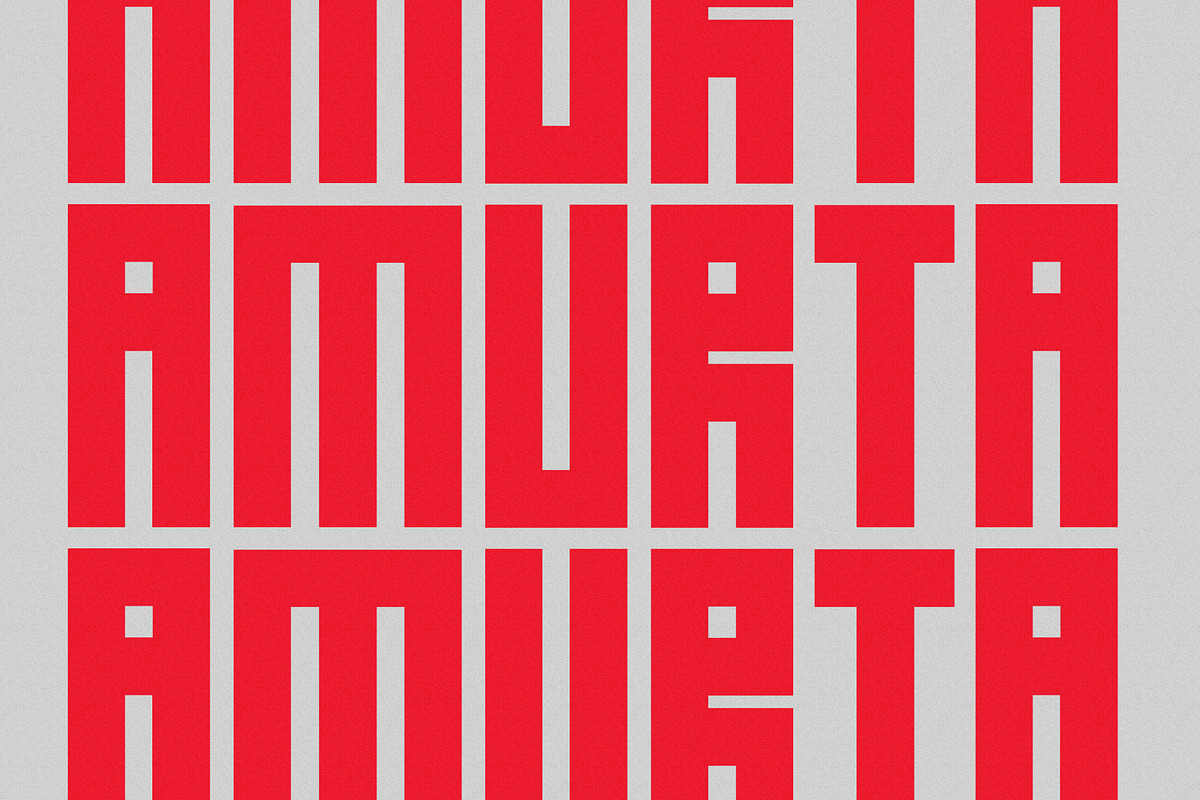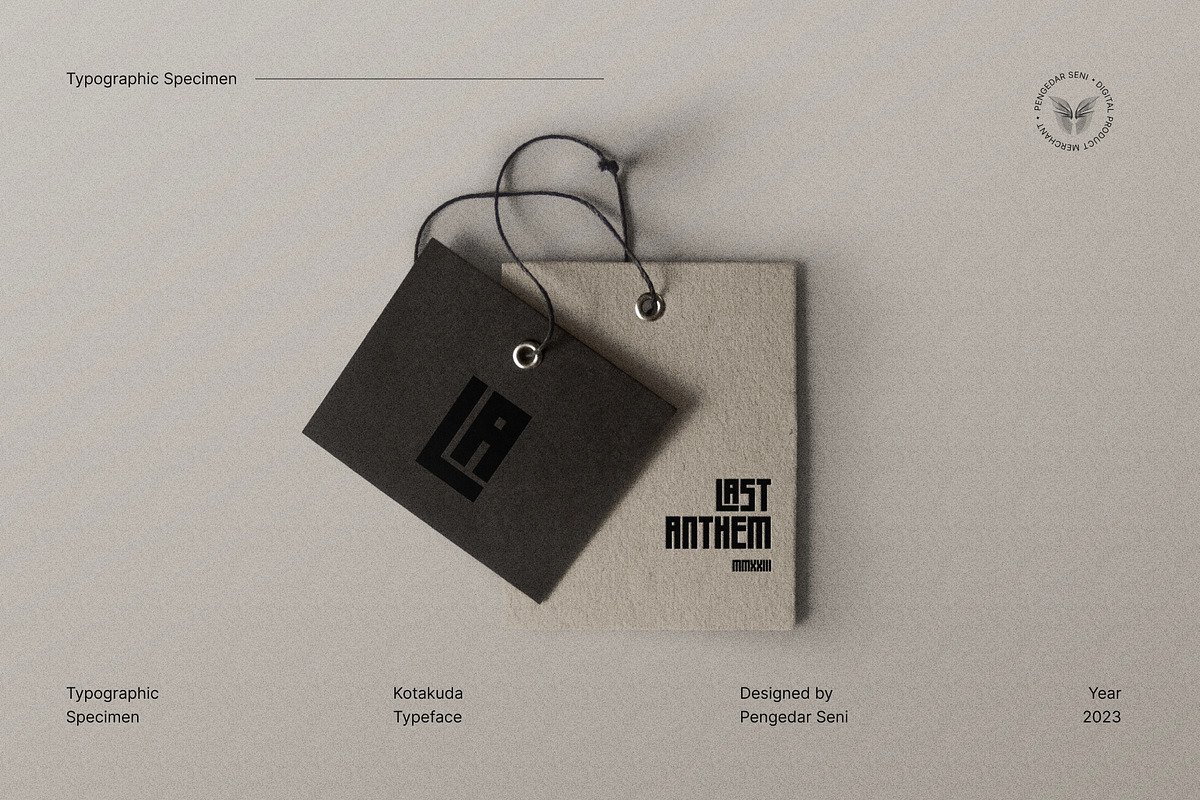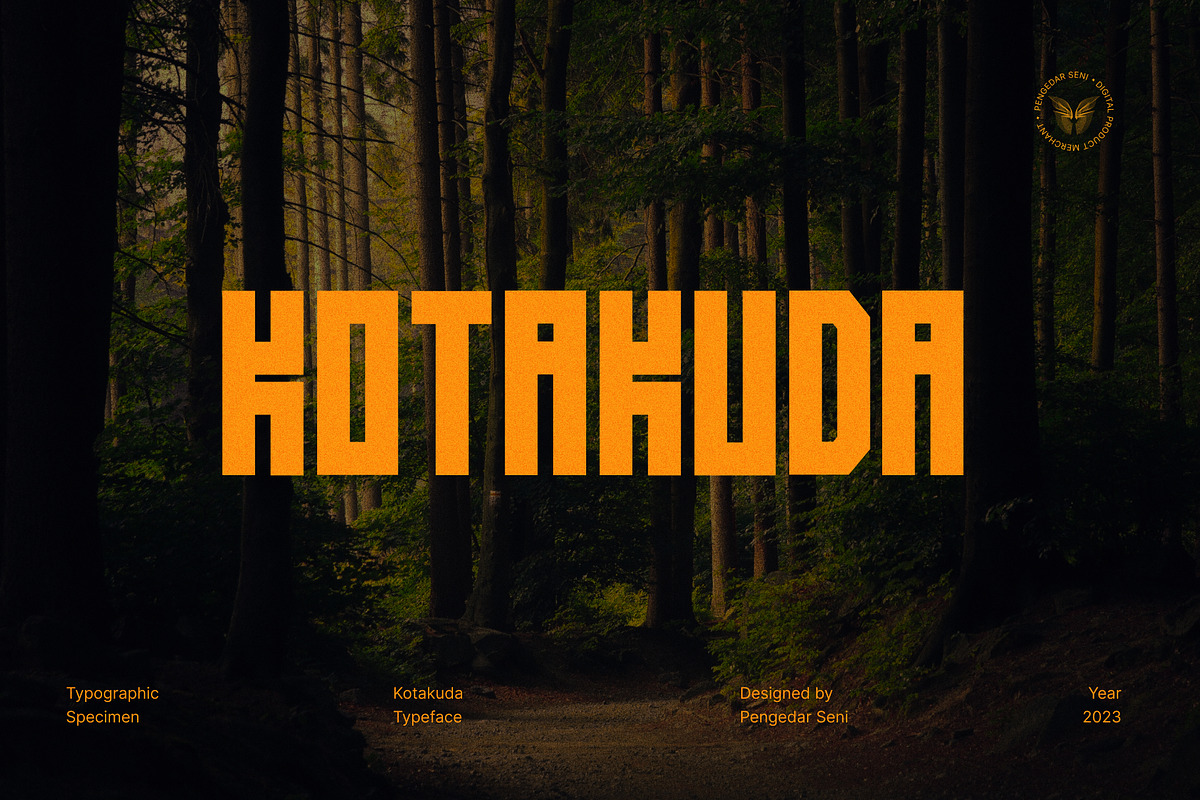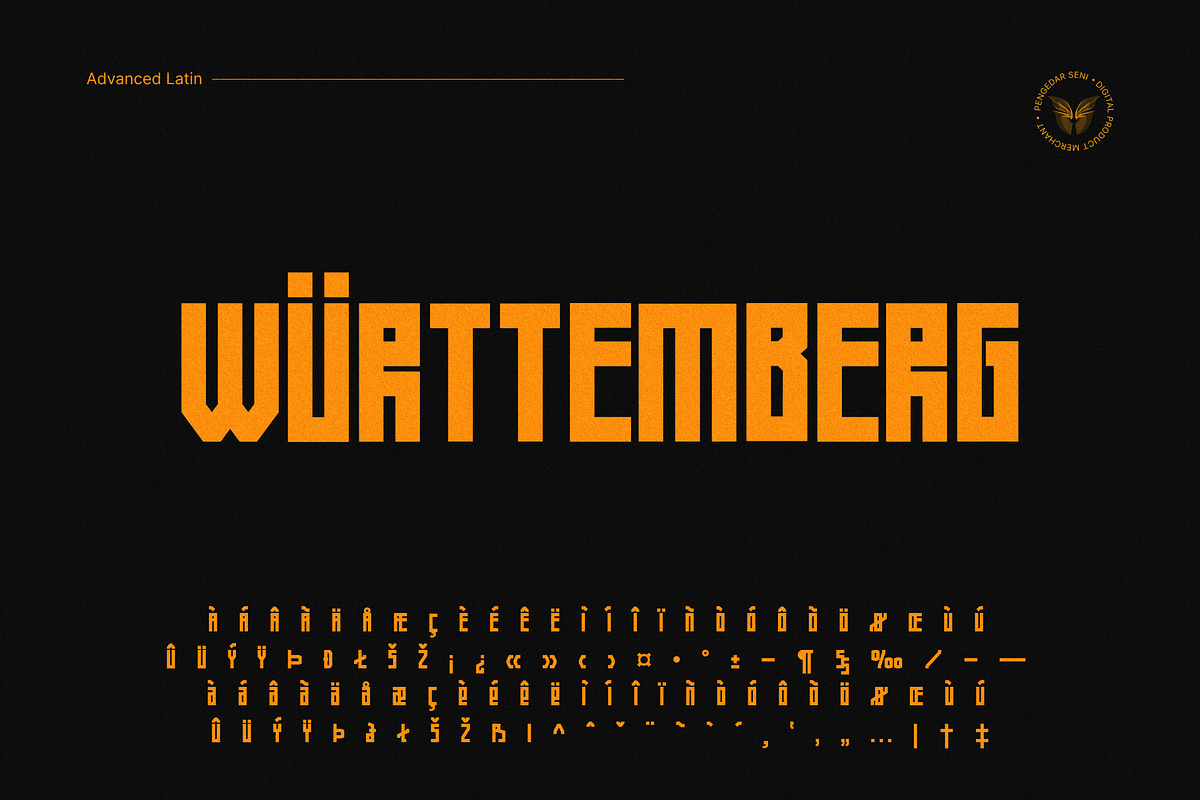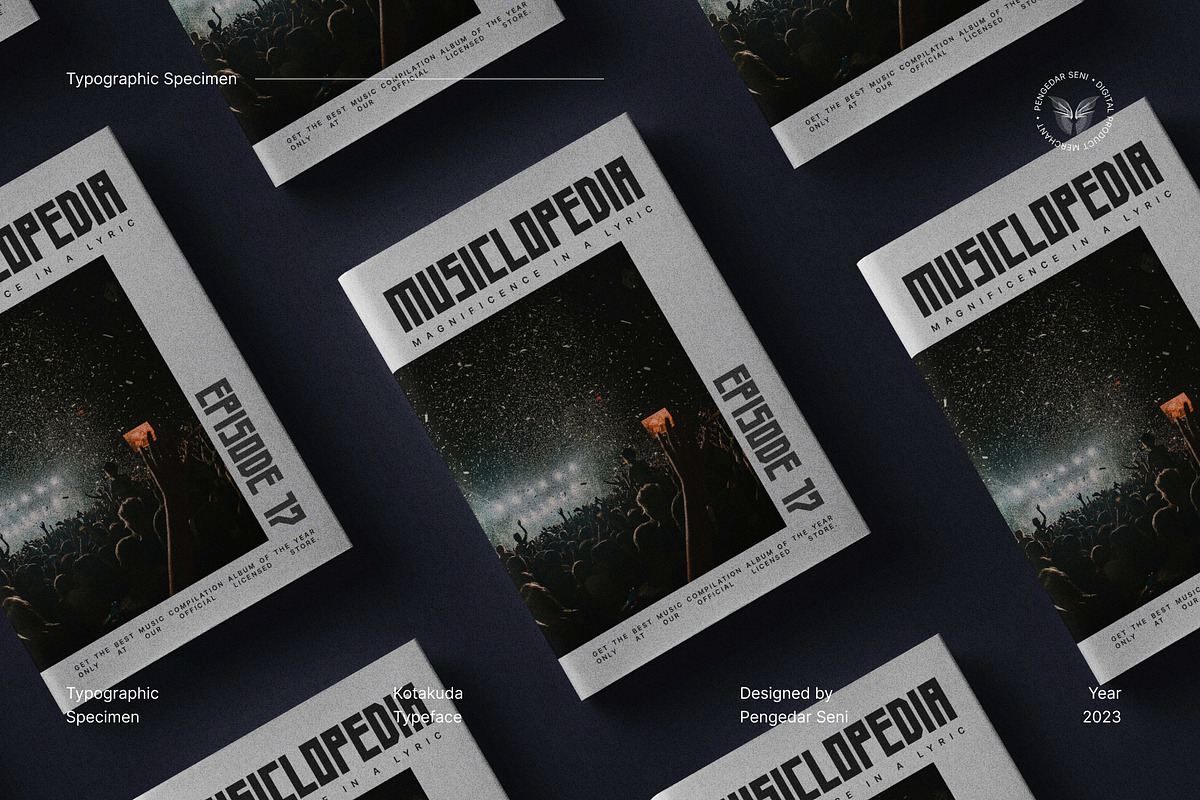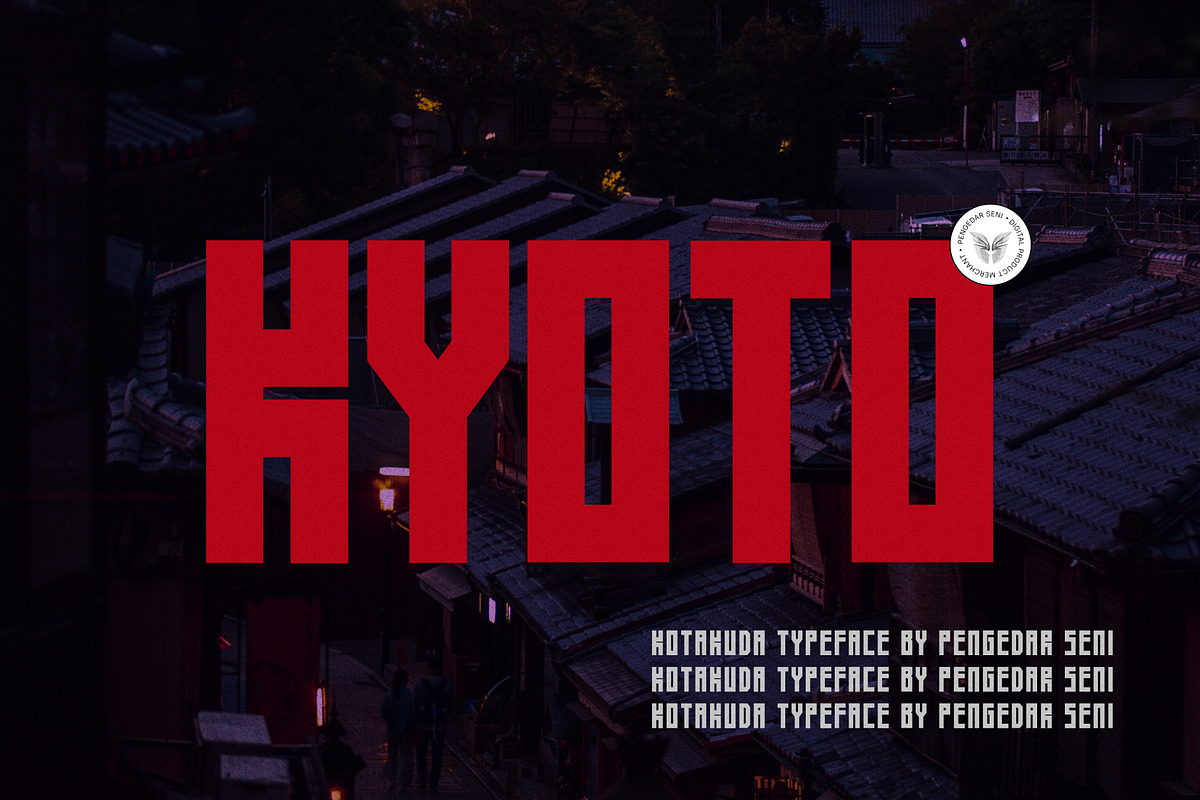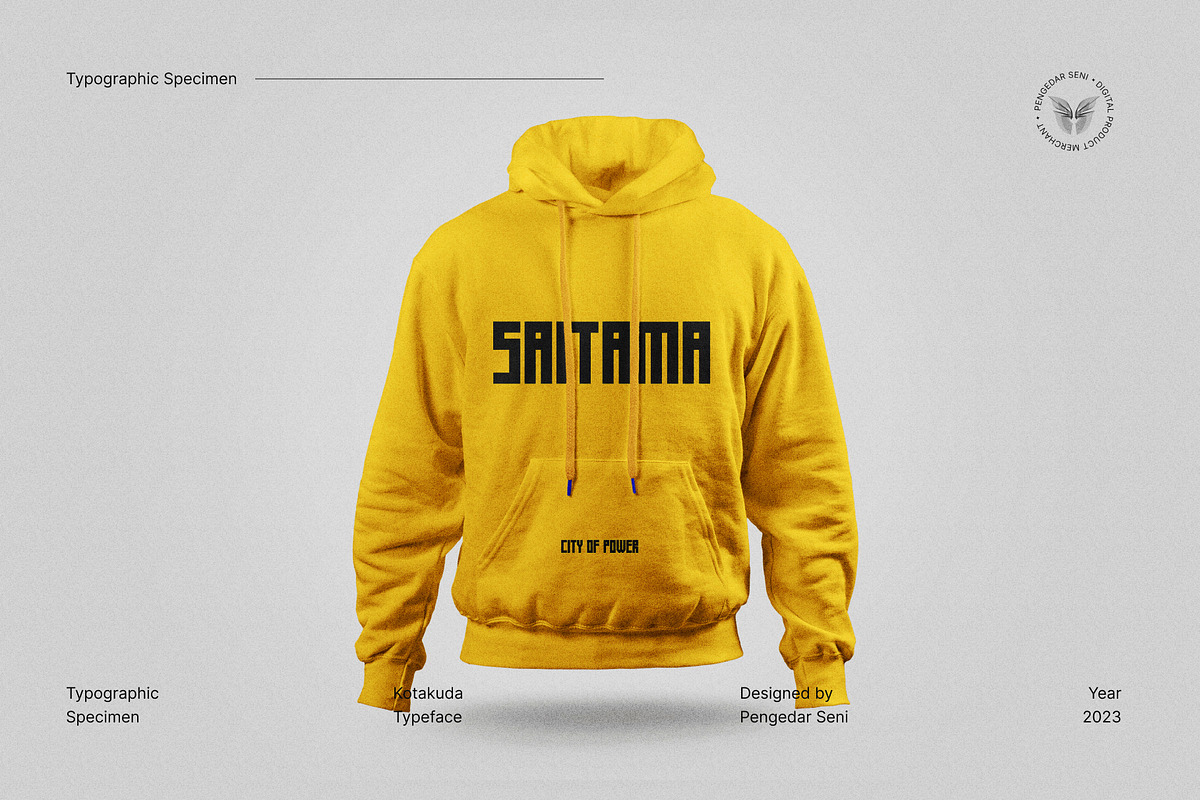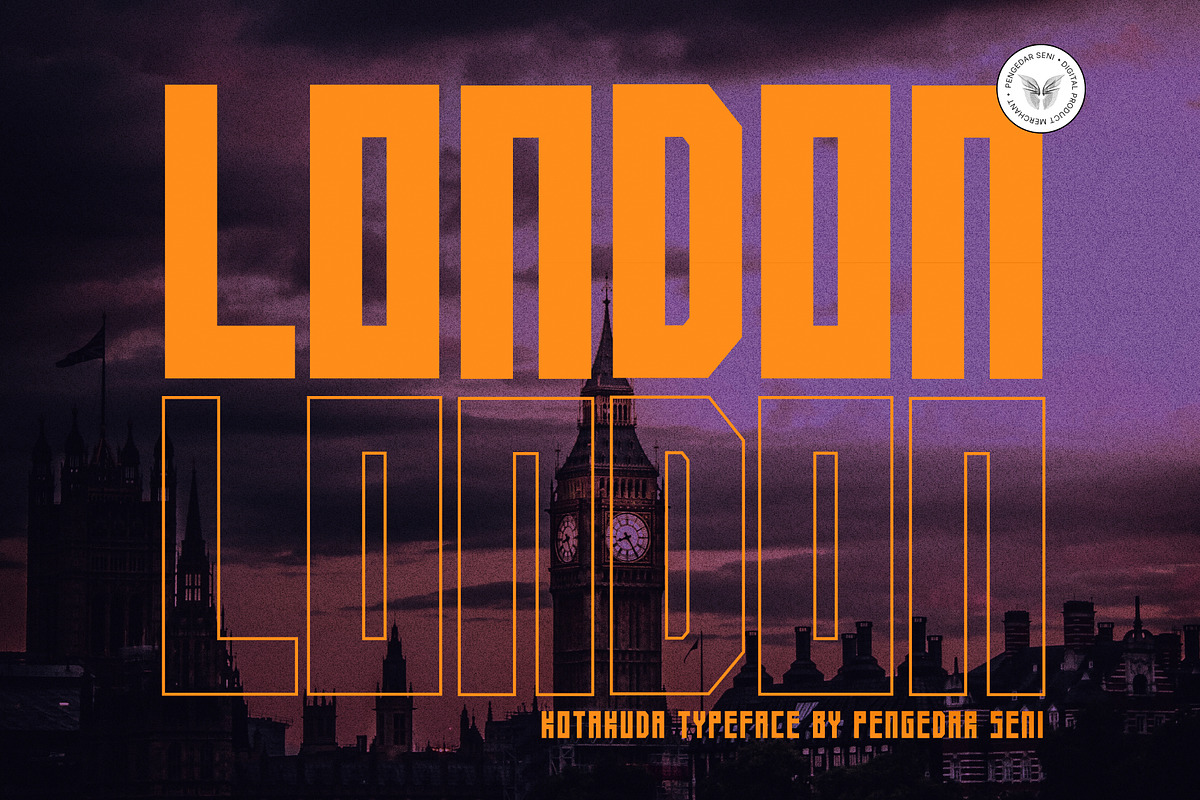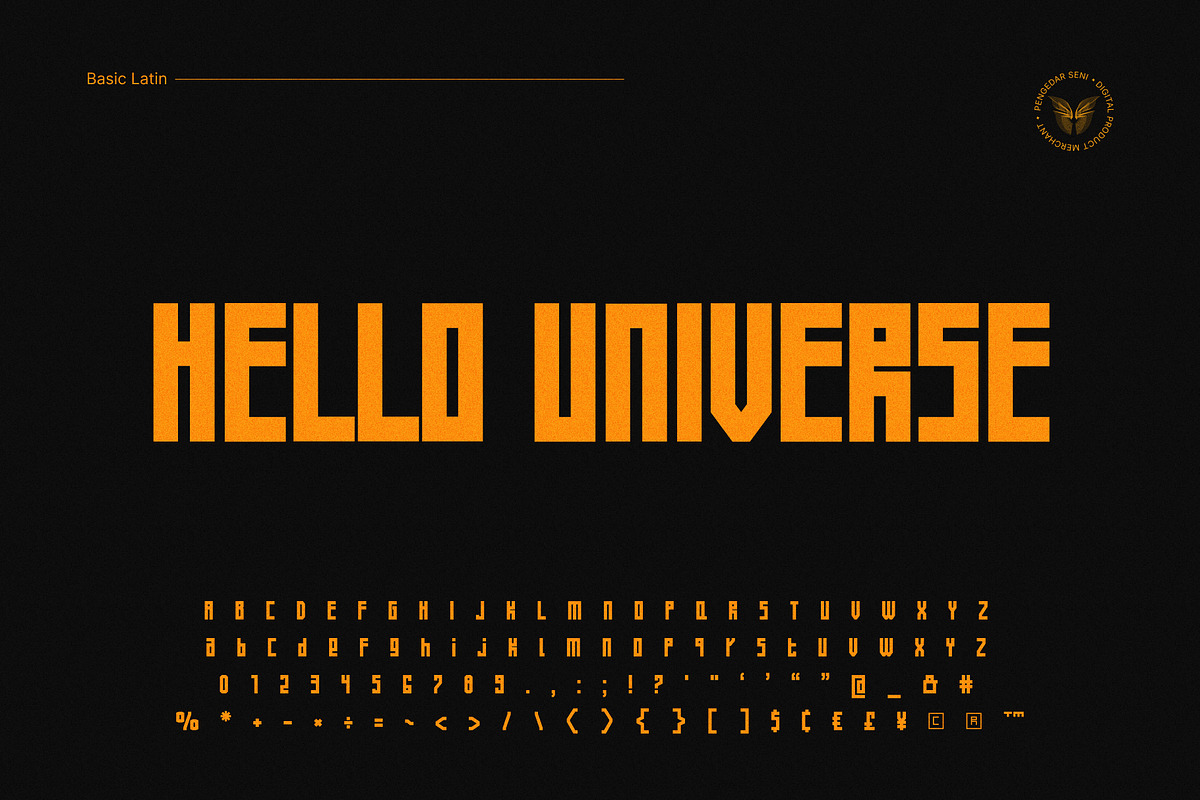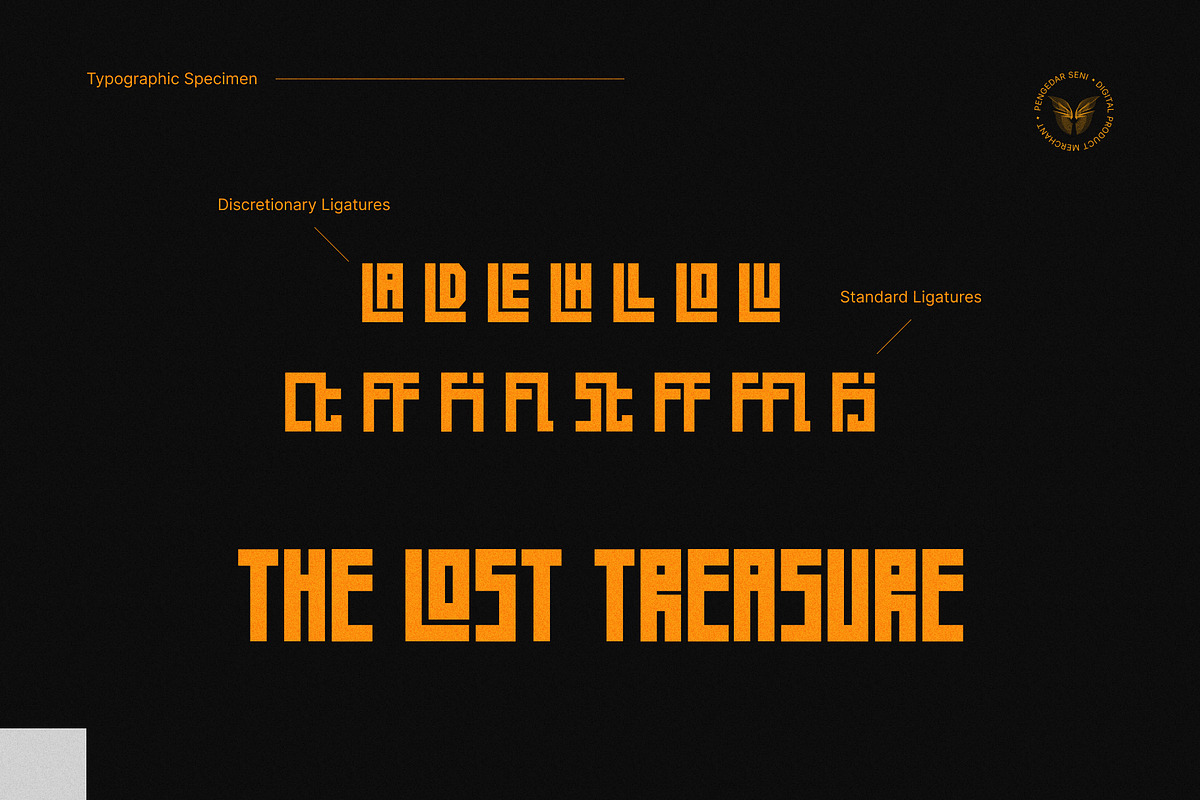
Kotakuda Bold Display Typeface
⭐ Kotakuda – Bold Display Typeface
Kotakuda is a bold display typeface designed for strength, masculinity, and dominance. With tight kerning and clean letterforms, it delivers a retro yet powerful aesthetic, making it ideal for headlines, logos, apparel branding, and statement designs.
🔥 The Meaning Behind Kotakuda
Inspired by raw power and balance, Kotakuda merges bold structure with an assertive presence. Its compact design ensures maximum impact, perfect for those seeking a vintage-meets-modern look with a commanding presence.
✅ Why Choose Kotakuda?
- ✅ Bold & Strong Aesthetic – Perfect for masculine branding, headlines, and retro-inspired visuals.
- ✅ Optimized for Tight Kerning – Ensures a clean, compact look with a balanced composition.
- ✅ Versatile for Multiple Uses – Ideal for clothing brands, sports teams, editorial headlines, and logo design.
- ✅ Multilingual Support – Covers 82 languages, including Latin and Cyrillic scripts.
⚡ Kotakuda isn’t just a font—it’s a fusion of boldness, legacy, and striking visual impact. ⚡